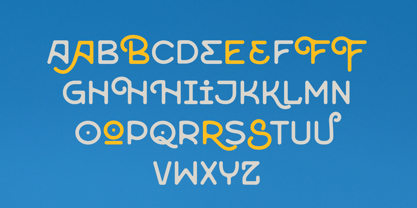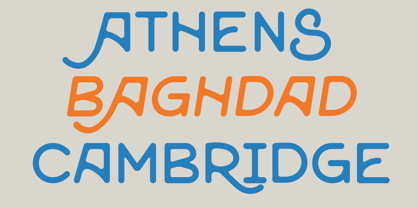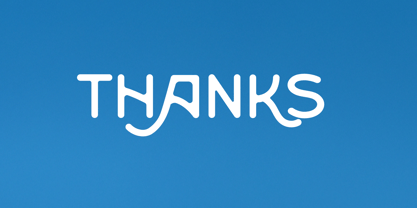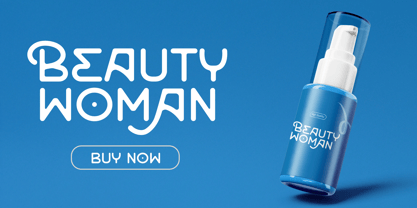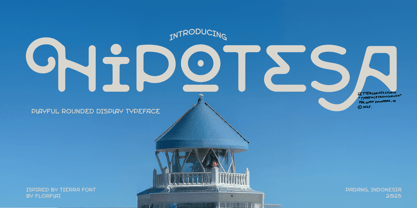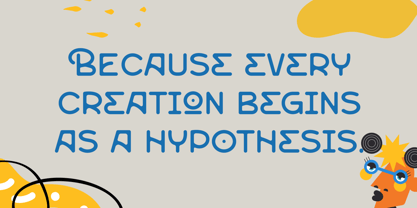
Hipotesa
by Mevstory Studio
The Hipotesa Font Family was designed by Muhammad Afif Ersya and published by Mevstory Studio. Hipotesa contains 2 styles and family package options.
From the word “Hipotesa,” meaning hypothesis — a thought, a question, a starting point for discovery. Hipotesa is a geometric experimental display typeface inspired by the beauty of curiosity and uncertainty. Just like a hypothesis, it begins with exploration — a question that seeks form, a theory that turns into visual expression. Each letter in Hipotesa carries a sense of play and purpose. Rounded, futuristic, and open, its shapes invite experimentation and movement. It’s a font that doesn’t claim to be certain — instead, it celebrates the process of finding out. Designed for bold headlines, creative branding, editorial design, and experimental visuals, Hipotesa challenges the boundaries between logic and imagination — between idea and form.